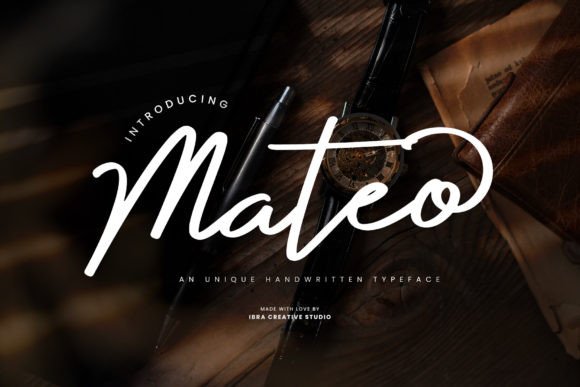
Embark on a typographic journey with Mateo, a script font that captivates with its raw, handwritten essence. This extraordinary typeface, crafted by the creative genius of ibracreative, breathes life into your digital creations with its charmingly irregular lines and artistic flourishes. It's a font that speaks to the heart, evoking a sense of authenticity and individuality in every letterform.
Mateo defies convention, breaking away from the mundane to offer a unique visual experience. Its letters dance across the screen like hand-drawn works of art, each character carrying a distinct personality that reflects the passion and creativity of the artist's hand. This unconventional style is perfect for projects that demand a touch of individuality, where the font itself becomes a statement piece.
Whether it's for eye-catching logos that demand attention or expressive quotes that resonate with emotion, Mateo seamlessly adapts to diverse design contexts. Its versatility shines through in its ability to elevate ordinary text into captivating works of art. With Mateo, your words take on a life of their own, inviting viewers to immerse themselves in the world of handwritten artistry.
Unlike traditional typefaces that blend into the background, Mateo stands out with its captivating originality. It's a font that commands attention, drawing the eye with its artistic flair and unconventional beauty. Every stroke and curve is a testament to the creativity of its creator, inviting viewers to appreciate the beauty of handwritten artistry in the digital realm.
Mateo is more than just a font; it's an expression of artistic freedom. It's a tool that empowers designers, artists, and content creators to break free from the ordinary and embrace their unique style. With Mateo, your creations will radiate with authenticity and individuality, leaving a lasting impression on your audience.